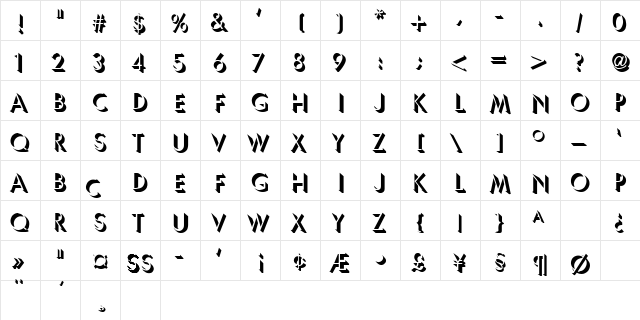
TASSOS Regular
Design Context for TASSOS Typeface
TASSOS is a composed and adaptable typeface that performs quietly and consistently across a wide range of design contexts.